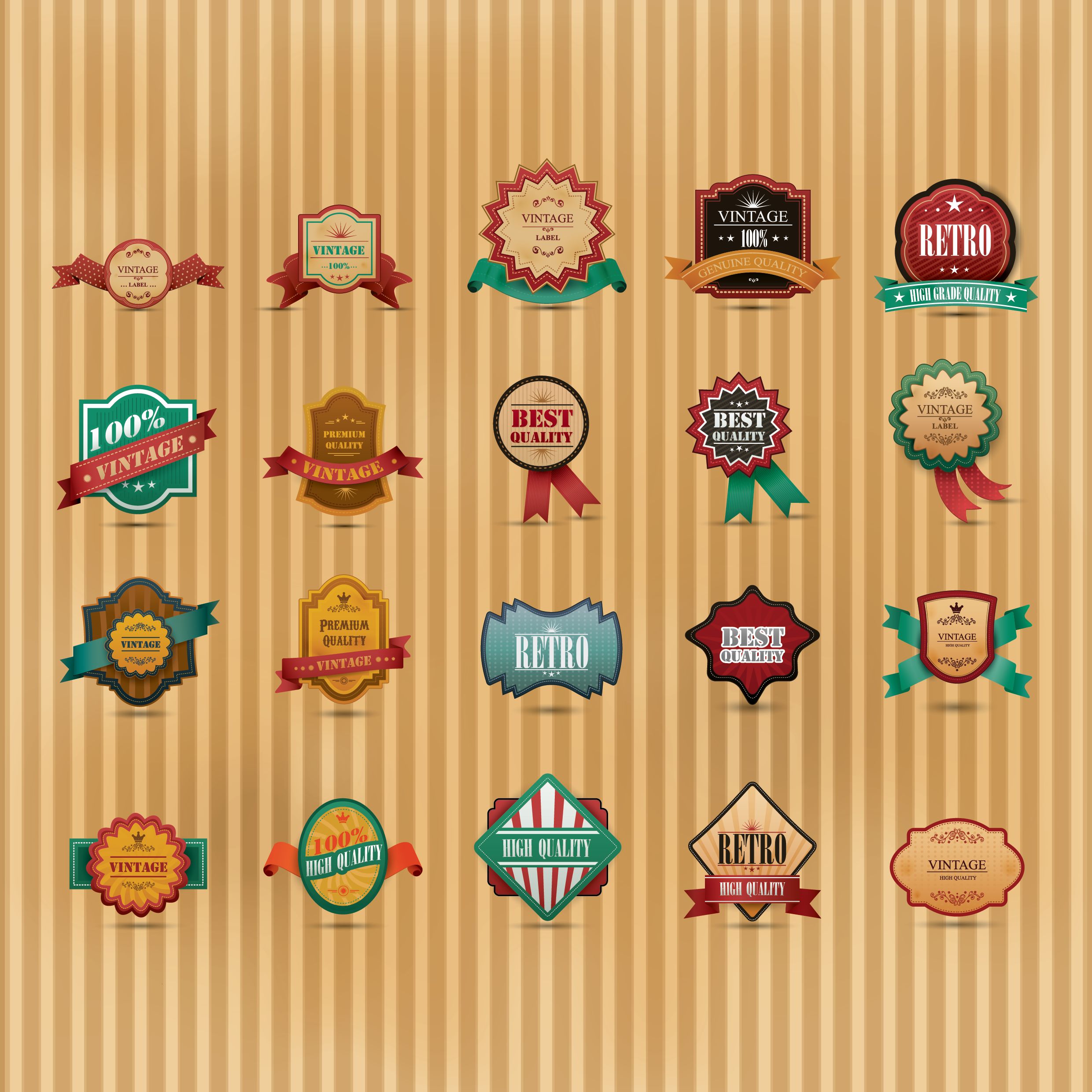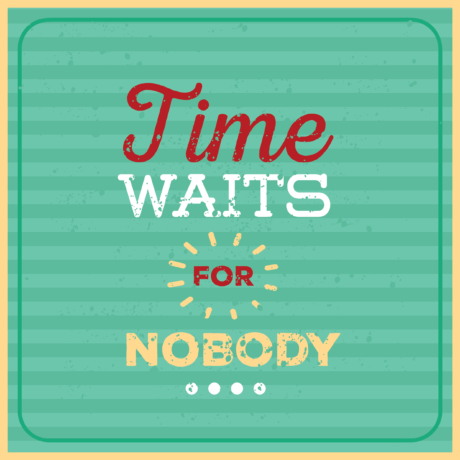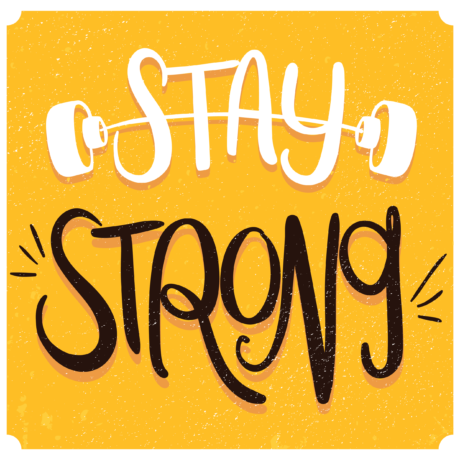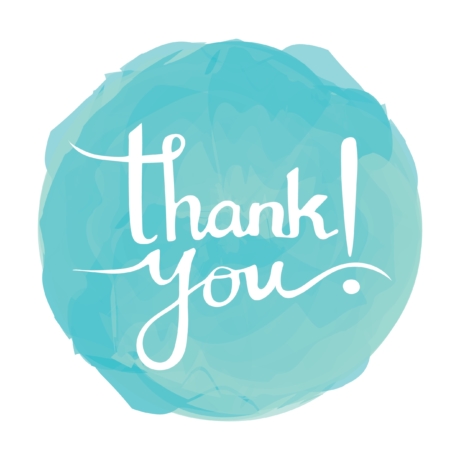
How To Choose The Right Fonts To Build Your Brand
Even if it doesn’t seem easier, picking a stellar name or crafting an intriguing tagline for a brand is definitely not an impossible job. However, a majority of business people think that just by executing a few tasks, their job is done. If you are from the same pack, you might be wrong as for how to choose a font for your brand is well thought out process.
When it comes to pursuing your audience, regardless of the tactic you are choosing, you must keep the visual communication in mind. After all, that’s how you can obtain enough of their attention.
Now, talking about visuals, the font is one such thing that most people seem to take for granted, despite the importance that it holds.
Quite similar to colors, even fonts provoke an emotional response. Be it for the good or not, they elicit specific feelings, associations, moods, and what not. Some fonts, such as Script Fonts Bundle and more, are appreciated for their beauty, elegance, as well as the craft.
The truth is that fonts do communicate much more than mere words. The typography that you are selecting surely speaks a thousand words about your style and your business. Therefore, when it comes to selecting brand fonts, you’d have to be much more cautious than you may imagine.
Why Selecting A Font Is Important?
To facilitate the concept behind the font selection, it can be simply compared to the way you select your clothes. To present a specific personality, you dress in a specific way, isn’t it? Same goes for the font.
Have you ever noticed how a wrong choice of clothes could completely ruin your look? Something similar can happen if you pick up a font that wouldn’t match the taste of your audience or the theme of your brand. A bad font choice can entirely refute your brand message to your audience. Even before your audience would try to assess the core of your message, they may end up judging you based on the font selection.
Since the first impression matters the most, you must think about how you are going to depict your brand. Also, you must also make sure that the fonts you are selecting are complementing each other to avoid unnecessary confusion.
Although it is possible for you to know the importance of fonts, when it comes to how to choose a font for your brand, you may go tongue-tied. If so, here are some of the best tips that will lead you to appropriate selection.
1. Aligning Font with Brand’s Character:
The first and foremost thing to consider is the outstanding quality of your brand. You should know better the personality of your brand. Is it trustworthy and serious? Or, is it all about fun and joviality? What is it that your brand stands for and what are the ways in which you make contact with your audience?
Furthermore, you should also keep your target market in mind. Right from their interests to their dislikes – knowing everything will help you form a brand identity, which will eventually lead to an easier selection of fonts. When it comes to the final selection, pick something that would perfectly match the feel and mood of your brand.
Since every font has its own distinct personality, you can navigate through and choose the best one that would be relevant to your brand. If your business is quite professional, you can choose a font that’d be more elegant. On the contrary, if your brand promotes cheerfulness, you can get a font that may delineate the same.
2. Considering the Contrast:
To begin with, it is important to consider the font contrast. You must figure out which contrast in a font will be good enough for your business brand. Fonts that come with high contrast are generally good enough for the size of the display. Here, the elegance of such fonts is appreciated appropriately.
However, when it comes to using the same for texts, it might be a bit challenging since their thin strokes may decrease the definition of visual altogether. On the other hand, even fonts with low contrast can put some limitations forward, owing to different reasons.
In a way, calligraphy strokes have been inspiring the world for decades for now. But, it isn’t important for you to choose just those. Make sure that the contrast you are selecting will resonate with your brand image for good.
3. Divide & Conquer:
Considering the unlimited collection of fonts out there, choosing the best font for your business might not be a tough task, though it can be prolonged. Most of the times, people invest so much of time and efforts to find out a unique font that they end up making peace with only that one of the kinds.
However, if you can, you can choose multiple fonts to leave a better impact on your audience. That being said, you don’t have to change the font with every paragraph. What you can do best is assign a specific font to headings, sub-headings, and the body copy.
However, while selecting different fonts for these different aspects, the thing that you must keep in mind is the ability of these fonts to enhance and support each other. Furthermore, it would help if you also keep the role of these fonts in mind, be it to draw attention or make the text legible.
4. Follow Trends of the Industry:
Regardless of the thing that you are choosing for your brand, paying attention to industry trends is always important. And, when you are moving through famous brand fonts, it becomes even all the way more essential. Understand the industry and your clients before taking the plunge.
If you are in a masculine industry, you can choose something bold. However, if you’re dealing with something elegant, you can select such a font, which is thinner and looks refreshing, then you should consider some cursive handwritten fonts. Another important aspect that you shouldn’t forget is the consistency of branding, even if the channels are being varied.
Therefore, try and keep the font type same throughout the channels you are promoting your brand. It will help you keep the standards of your brand reliable. So, the font that you’d be using for your website, you can use the same for other platforms. Hence, be a bit more careful while selecting.
5. Keep Readability As A Priority:
When you are stepping into a competitive world to woo your customers, readability should always be your priority. Regardless of how powerful your message is, it will be nothing but naught if it is not readable. The best way to keep the legibility high is by selecting a good brand typography font.
For this, one of the famous designers came up with a brilliant idea. If you feel confused, type a number 1, an uppercase I, and a lowercase I next to each other. If you can tell the difference between these three, you may go ahead with the selected font. And, if not, it’s time to look out for something else.
With good typography, not just you can build an impact first impression but can also establish a significant brand identity. With a gamut of fonts, you surely have a lot of choices. Experiment and refine your selections. As long as you are choosing a font that matches well with your brand, you are in a clear line.
6. Avoid Too Much Similarity or Dissimilarity:
When it comes to attracting your audience, putting a combination on the table can always draw the ball in your court. However, the kind of mixture that you are bringing forth matters the most. If there is a variety of fonts, obviously in a limited manner, people tend to get more pleased.
But, just to do so, make sure you aren’t putting something too similar or different altogether. While doing so, not just you may risk the readers’ attention but may also lose on the message that a particular design is meant to give. Generally, the stroke weight of the fonts may push you into a dilemma. As a result, you may end up using a bold serif with a script font, which wouldn’t make any sense.
Furthermore, just because two fonts are similar in thickness doesn’t mean they would be just the same. You must learn to differentiate between fonts to achieve the best results.
7. Versatility Is the Key:
Since you’re going to use the similar font(s) throughout the channels you are available at; you must keep the user experience in mind. Not everyone is going to sit in front of a computer just to assess your website or graphics. There will be different devices with different sizes of screens.
Hence, irrespective of the style, size, or weight, you’d want the design of the font to look good, isn’t it? So, make sure that the font you are picking is versatile and looks good in different styles, including normal, bold, and italic. Moreover, pay attention to the size of the font as well.
Conclusion:
If said that there is a literal treasure of brand font designs out there, it wouldn’t be an overstatement. Because, no matter what, you will surely come across a gamut of them. And, the number is increasing every single day.
In such a situation, choosing a font for your brand becomes quite tough, isn’t it? Since it is a one-time choice, you’d have to be extra careful. In this case, these above-listed points will definitely help you choose the best.
So, go ahead, navigate through the fonts available, experiment with your brand image, and choose the best one to attract your audience.